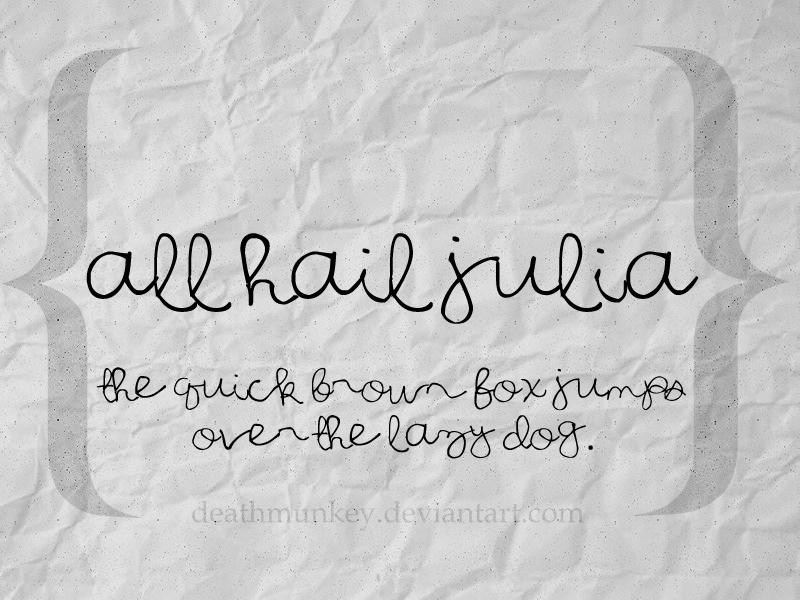
All Hail Julia by Denise Bentulan is a free handwritten calligraphy font with the easy sweep of a quick signature. Tall looping strokes rise above broad rounded letters, and the changing line weight keeps the writing fluid and lively.
For boutique branding and personal invitations, its connected forms offer an intimate, informal voice that feels genuinely penned. Album artwork and fashion packaging can use the same loose movement to recall an artist's autograph or a note written directly on the piece. It can turn a name into part of the artwork.